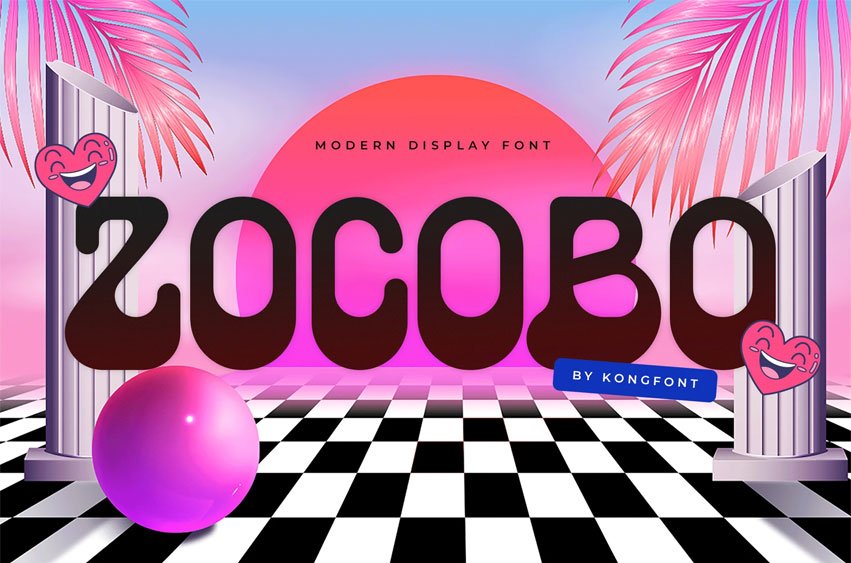
Zocobo Font is a modern display font crafted to bring bold personality and contemporary flair to your creative projects. With its unique shapes, strong curves, and eye catching forms, Zocobo delivers a fresh and expressive typographic style perfect for designers who want their work to be instantly memorable.
This typeface excels in logos, posters, headlines, packaging, social media graphics, merchandise, and any design that demands a striking, modern look. Zocobo’s dynamic character set gives every word a distinctive voice making it ideal for brands with a youthful, creative, or unconventional identity.